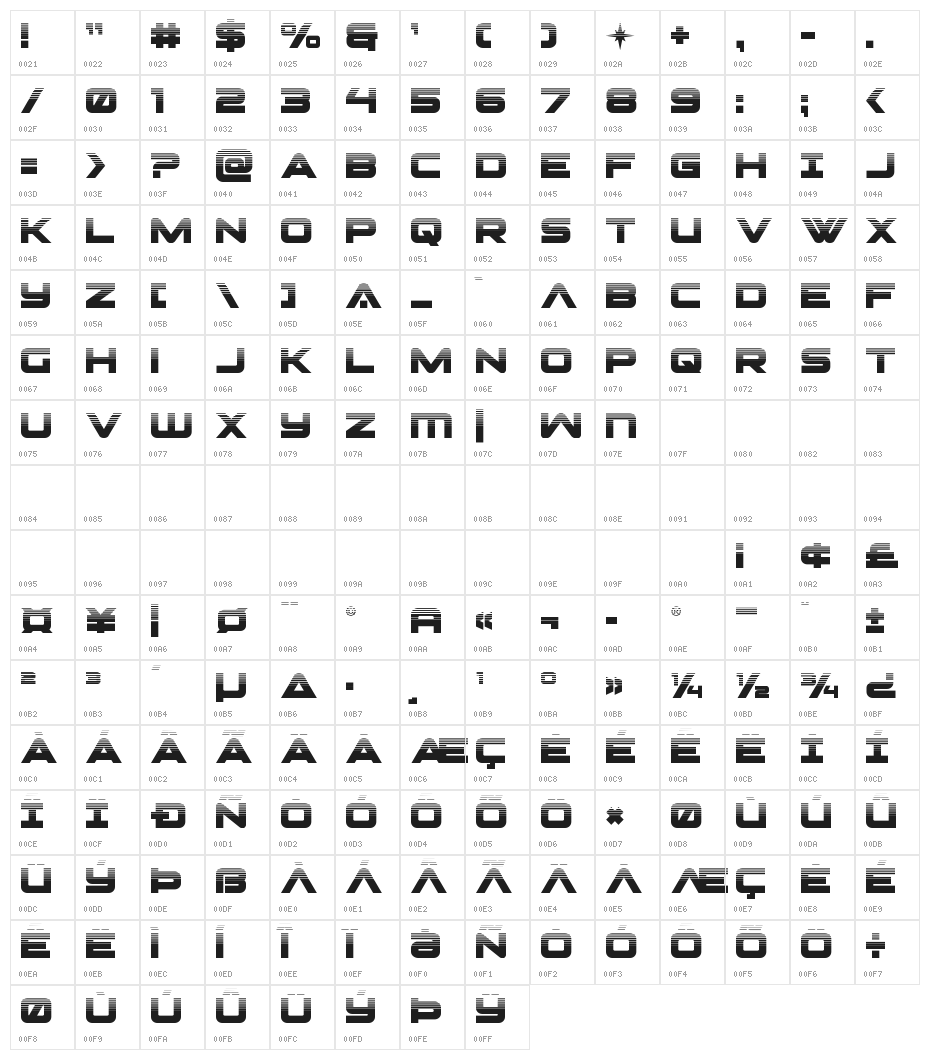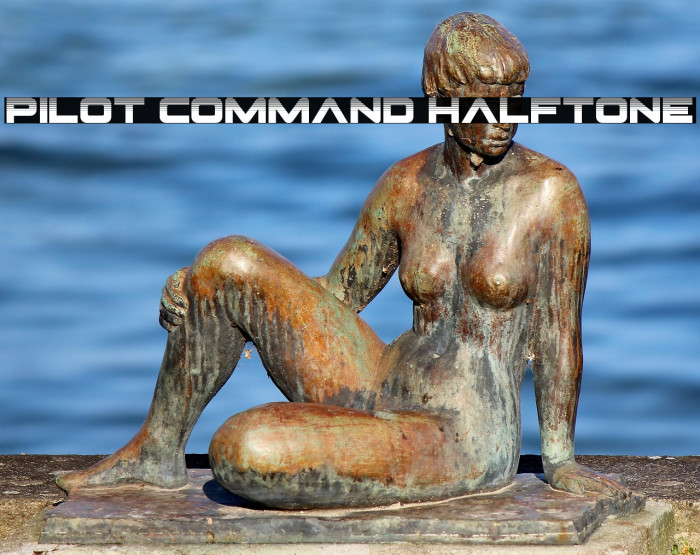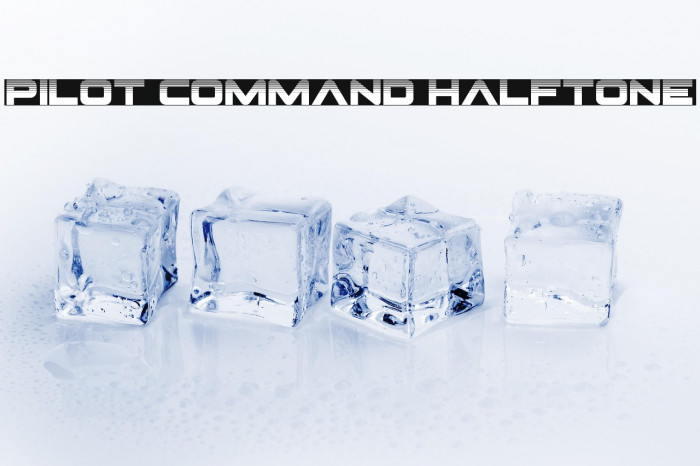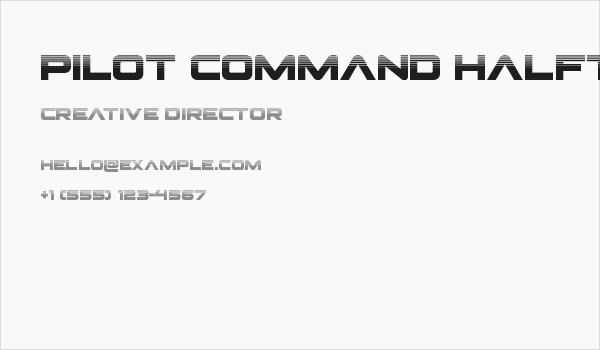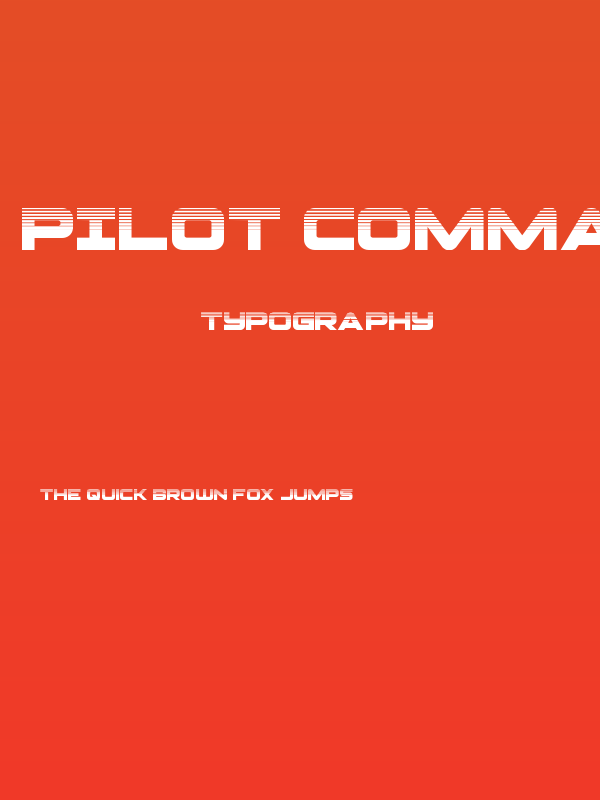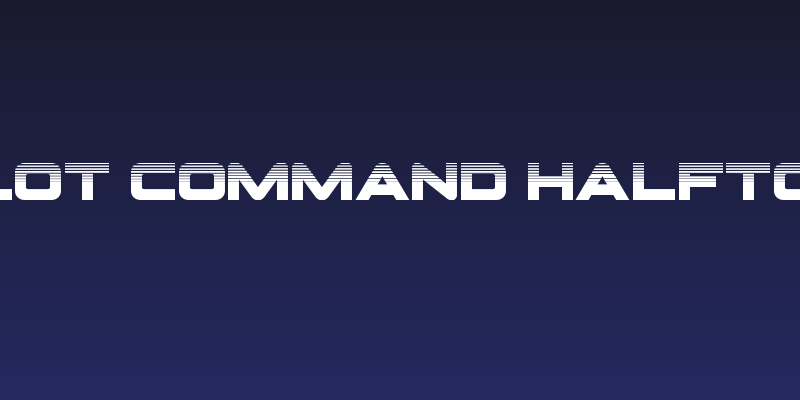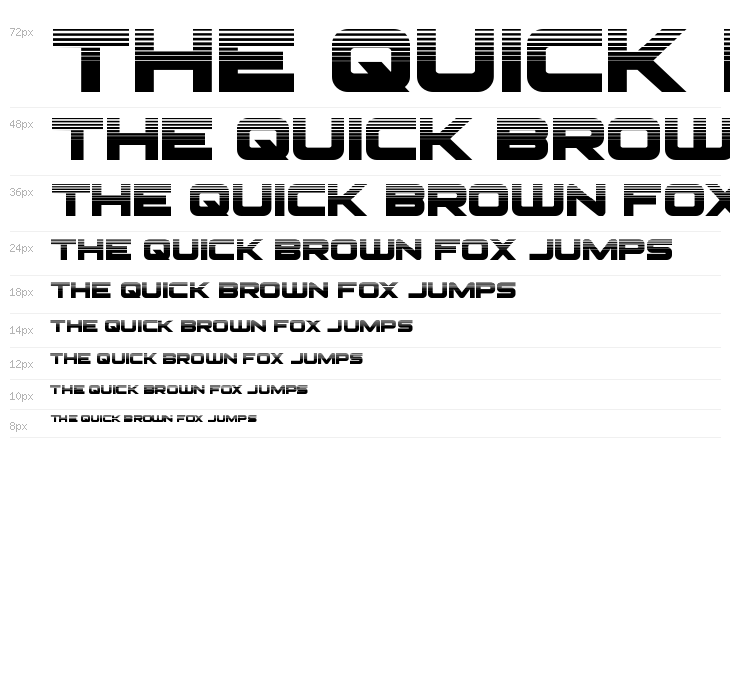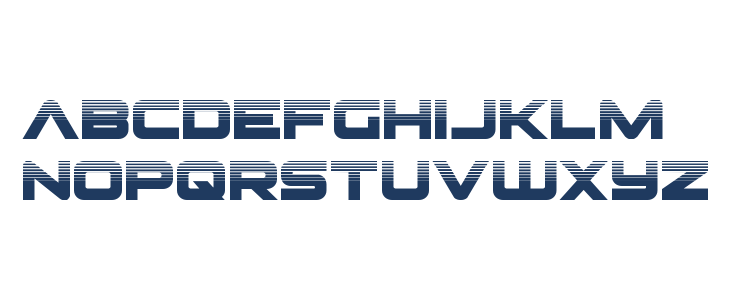
Pilot Command Halftone Font
Pilot Command Halftone Description
This font features a bold and futuristic design with a halftone effect that gives it a dynamic and modern appearance. The characters are constructed with a combination of solid and striped elements, creating a sense of movement and energy. The uppercase letters are particularly striking, with sharp angles and a strong presence. The numbers and special characters maintain this bold style, ensuring consistency across all glyphs. This font is ideal for projects that require a modern and impactful look, such as technology-related branding or sci-fi themed designs.